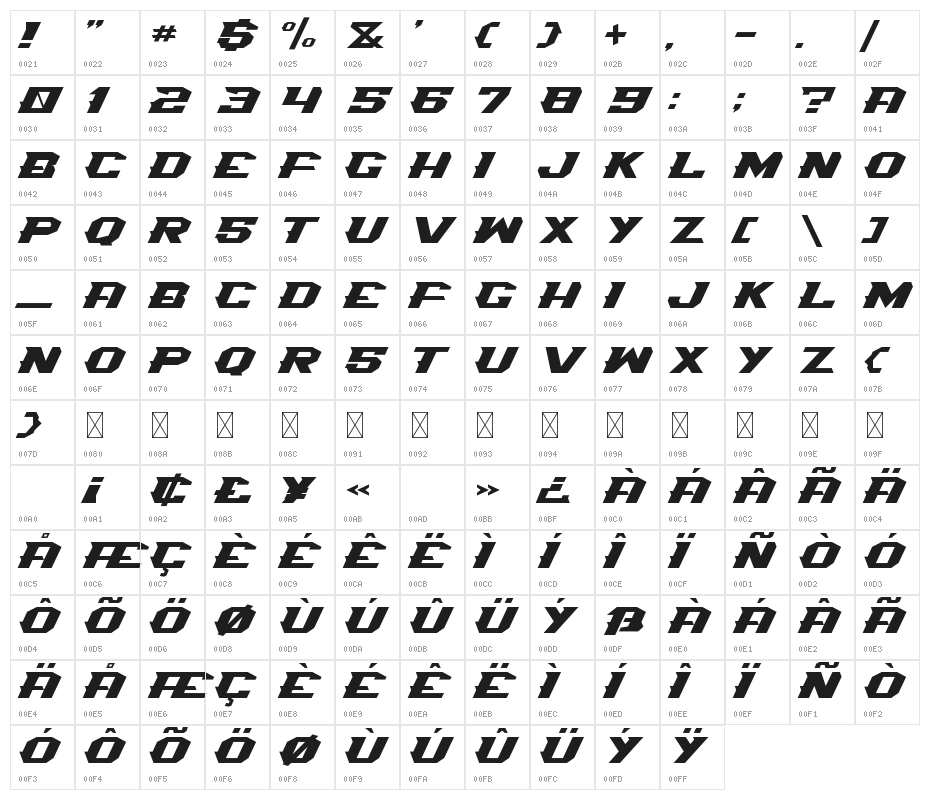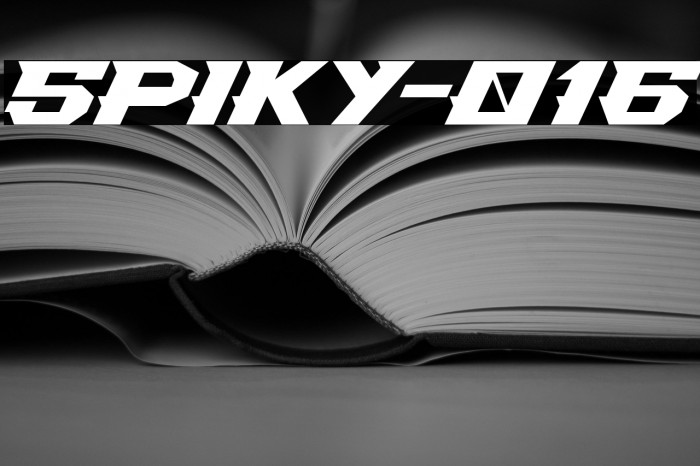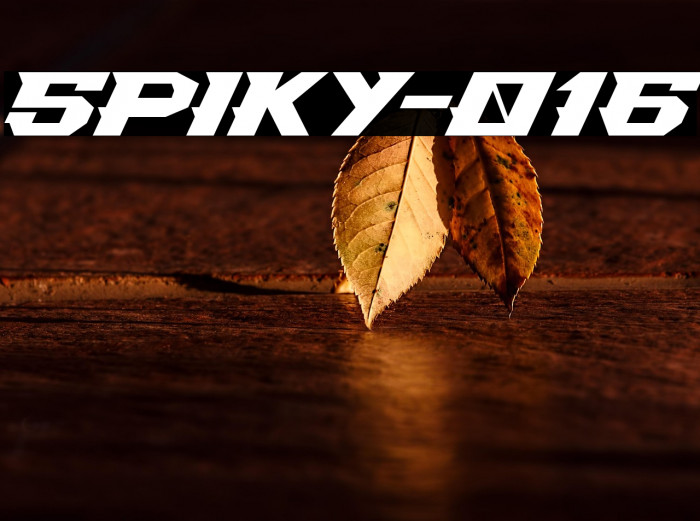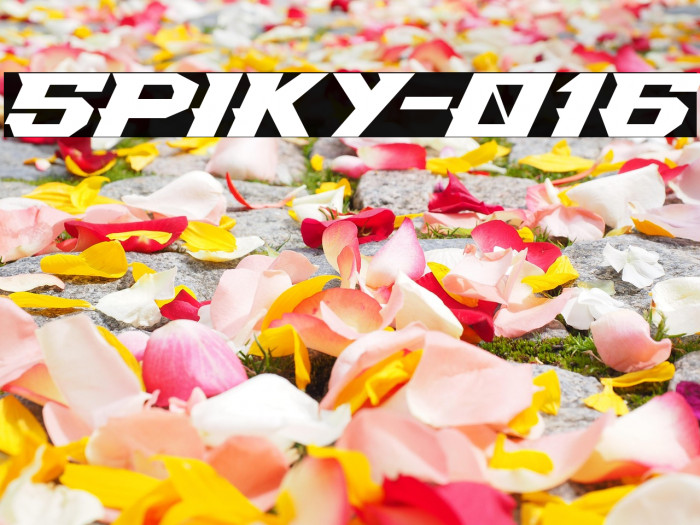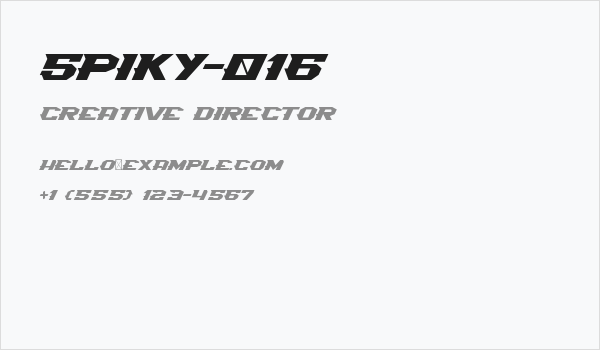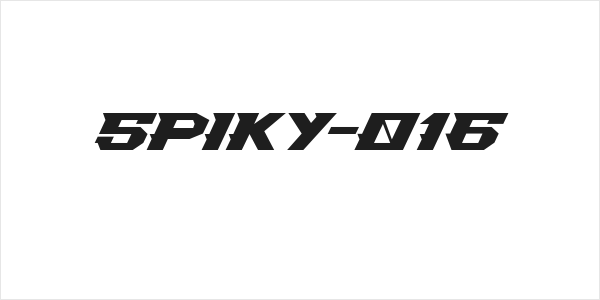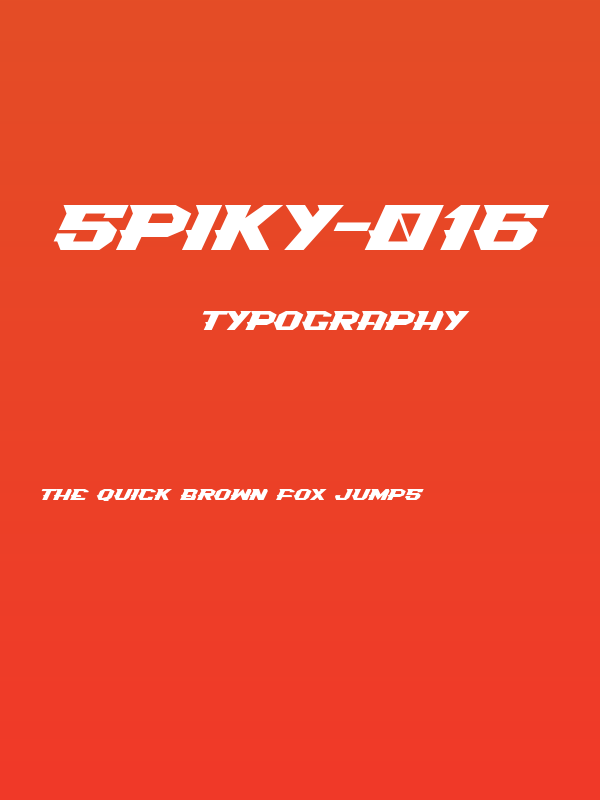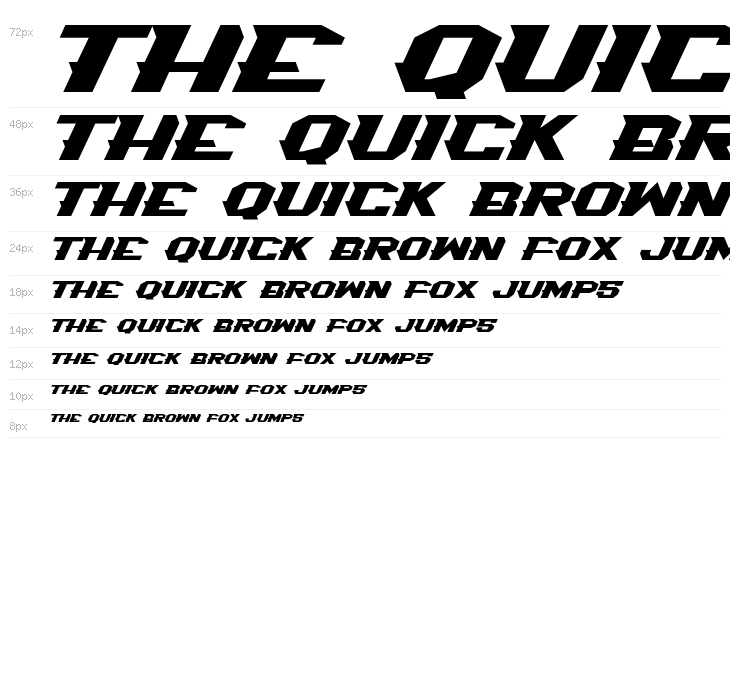
Spiky-016 Font
Spiky-016 Description
This font features a bold, angular design with sharp, spiky edges that give it a dynamic and aggressive appearance. The characters are heavily stylized, with each letter and number incorporating unique geometric cuts and angles. The uppercase and lowercase letters maintain a consistent style, emphasizing a futuristic and edgy aesthetic. The numbers and special characters follow the same design principles, ensuring a cohesive look across all glyphs. This font is highly decorative and stands out due to its unconventional shapes and strong visual impact.
| Proposed Projects | Ideal for projects needing a futuristic or aggressive aesthetic, such as video game titles, movie posters, or branding for extreme sports. |